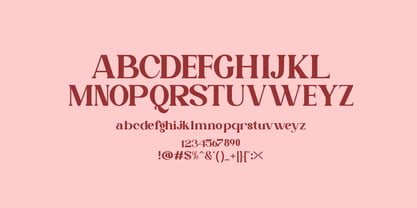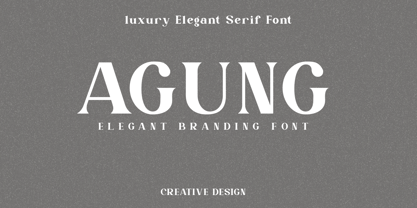
Agung
by Agung Sudirman
The Agung Font Family was designed by Agung Sudirman and published by Agung Sudirman. Agung contains 1 styles. More about this family
Introducing a modern and distinctive typeface designed to bring elegance and clarity into contemporary visual communication. This font combines clean structure with subtle stylistic details, making it highly versatile for a wide range of creative projects. Crafted with a strong focus on balance and readability, this typeface works beautifully for branding, logo design, packaging, editorial layouts, and social media graphics. Its refined character shapes give a professional yet stylish impression, making it suitable for both digital and print applications. What makes this font unique is its harmonious blend of modern minimalism and expressive letterforms. Each character is carefully designed to maintain consistency while still offering a distinctive personality. The proportions and spacing are optimized to ensure smooth readability across different sizes and formats. This typeface includes a complete set of uppercase and lowercase letters, numerals, punctuation, and multilingual support, allowing you to use it confidently in international projects. It also features stylistic alternates and ligatures that add flexibility and creative freedom to your designs. Perfect for designers who are looking for a clean, elegant, and functional font, this typeface adapts effortlessly to various styles—from minimalist branding to bold visual statements. Design Concept The idea behind this font was to create a modern typeface that remains timeless. Inspired by contemporary design trends and structured typography, it focuses on simplicity, clarity, and strong visual identity. Every detail was carefully refined to achieve a balance between aesthetics and usability.